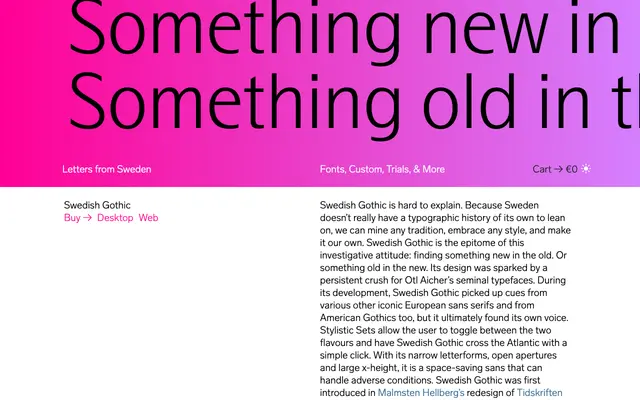
Swedish Gothic
Swedish Gothic specimen from Letters from Sweden
A narrow grotesque by Göran Söderström that navigates between Aicher's European rationalism and American Gothic tradition via Stylistic Sets.
Designed by Göran Söderström and first used in Malmsten Hellberg's redesign of Tidskriften Arkitektur, Swedish Gothic draws on Otl Aicher's work alongside various European and American grotesque references before settling into its own voice. Narrow letterforms, open apertures and a large x-height make it well-suited to demanding editorial conditions. Stylistic Sets let users shift between the European and American flavours, effectively giving two distinct personalities within a single family.
A European grotesque sans with narrow letterforms, open apertures and a large x-height, drawing on Otl Aicher's typefaces and American Gothic traditions, toggled via Stylistic Sets.